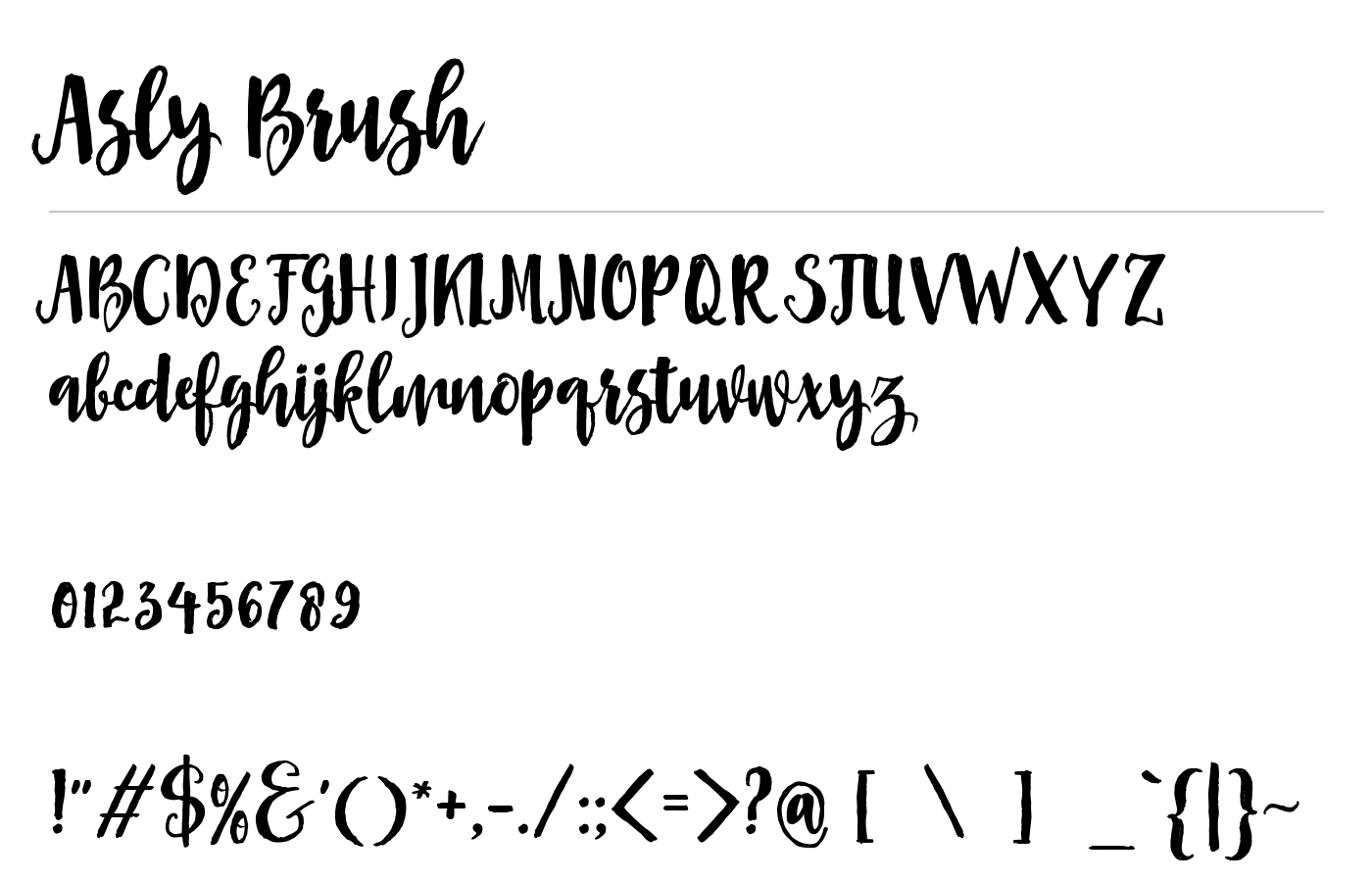
Asly Brush is a lively brush script font characterized by its bold, textured strokes and organic, hand-painted feel. Its playful yet confident style makes it perfect for creative projects that seek a personal, artistic touch, such as branding, invitations, and packaging. This font shines in headlines and logos where its expressive, natural brush marks can really stand out.
Asly Brush Font
About Asly Brush Font